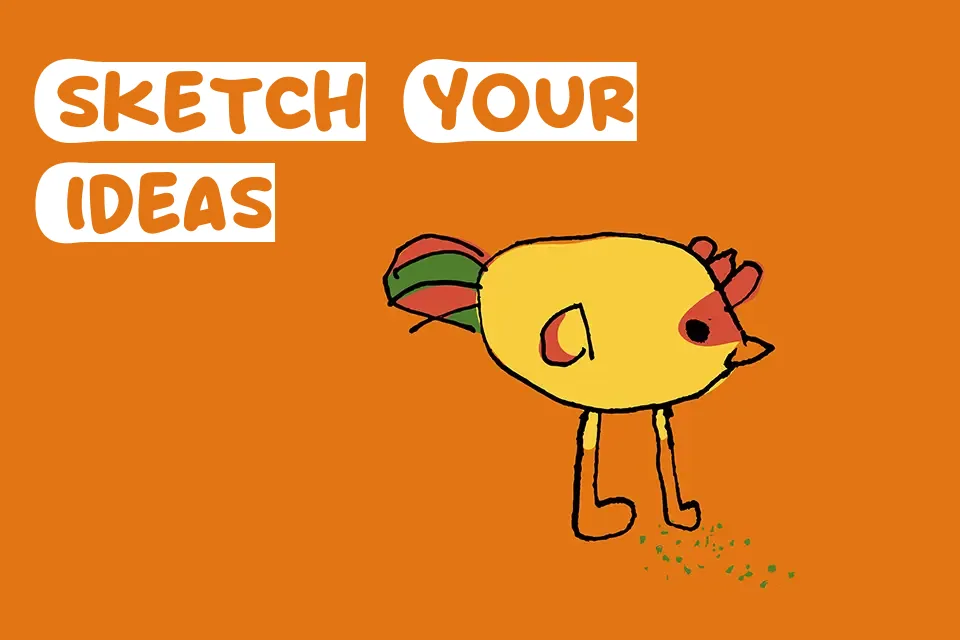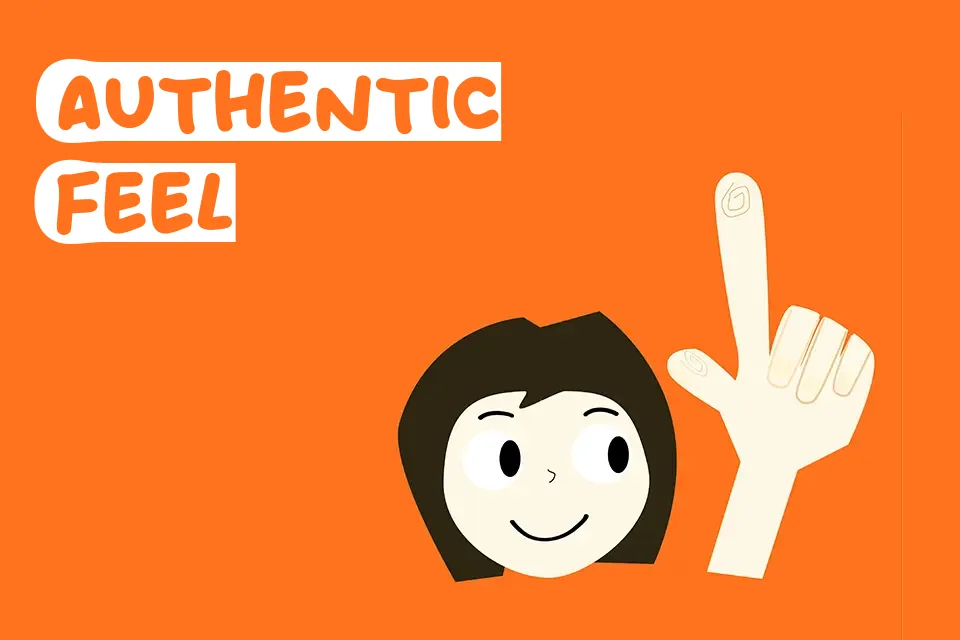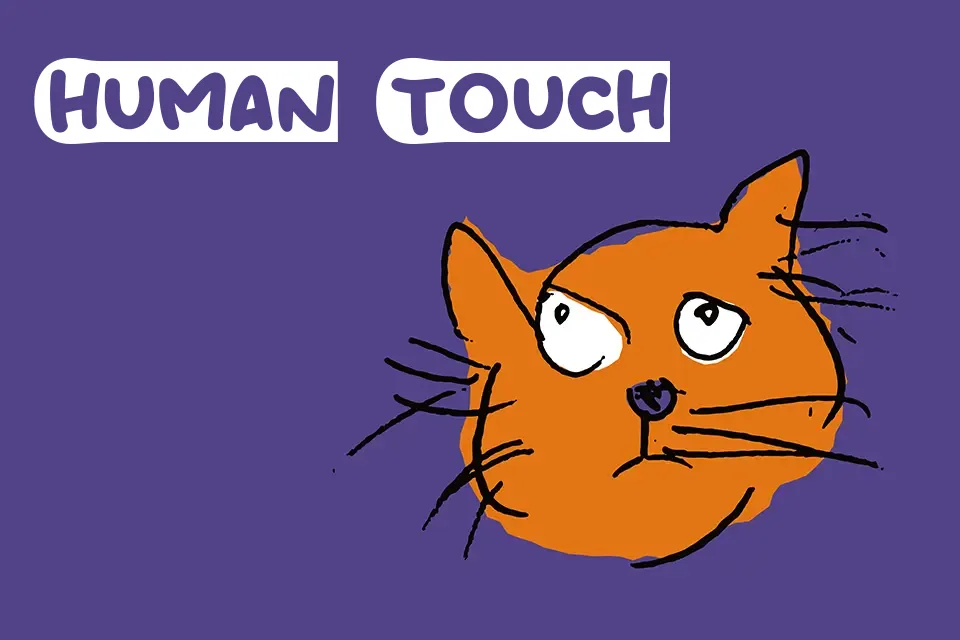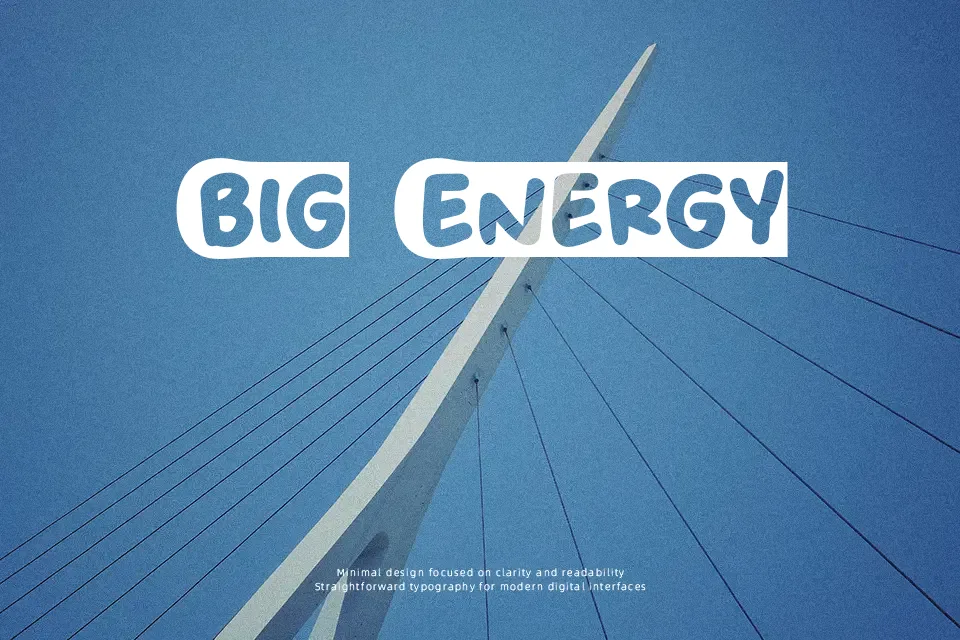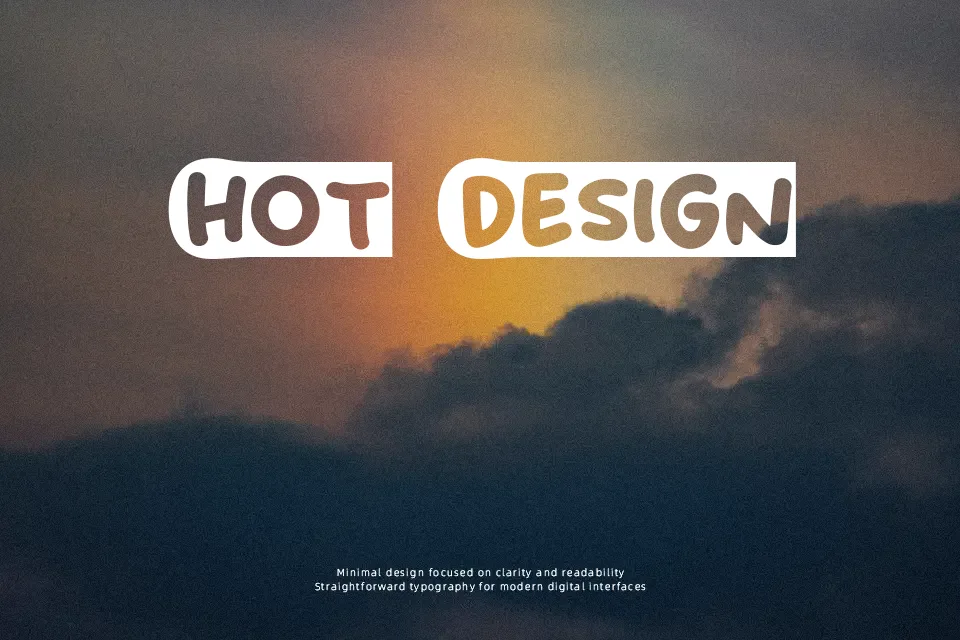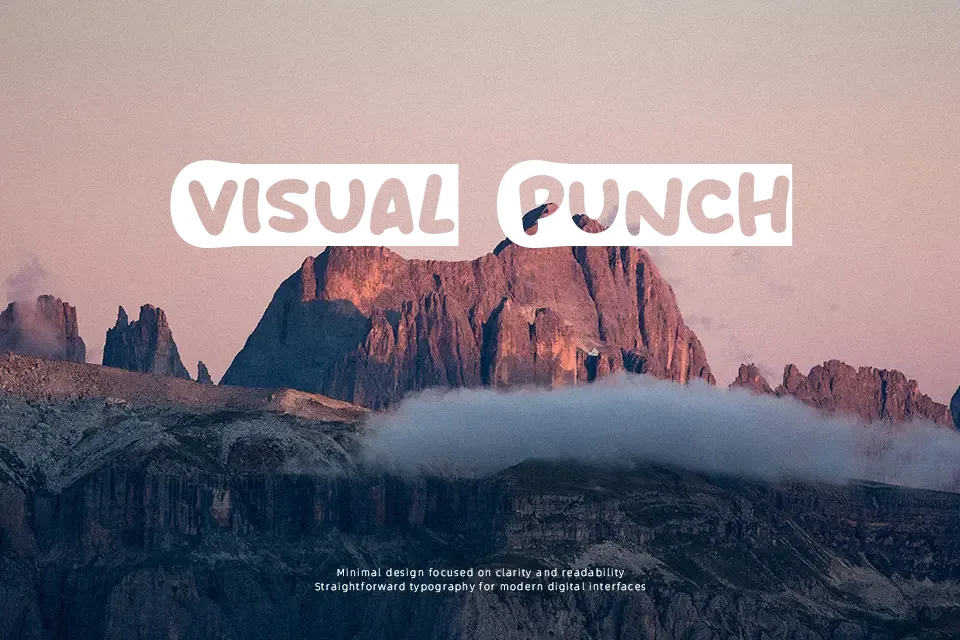
Share Dong Font
Share Dong Font presents an approachable cartoon aesthetic built with uniform stroke thickness, rounded terminal endings, and softly irregular character proportions. The bouncy baseline rhythm and moderate letter spacing give the typeface an energetic, hand-drawn personality that instantly enlivens short headlines, food packaging, comic strips, and animated video titles. Generous interior counters preserve clear letter differentiation when viewed at medium to large display scales. However, the informal silhouette and idiosyncratic contours cause small captions or body copy to look cluttered. Dense paragraphs quickly suffer from reduced reading comfort, confirming that the design performs at its absolute best in brief, cheerful display settings.
Best For: children book covers, food packaging labels, comic strip dialogue, animated video titles
Not Ideal For: long body text paragraphs, corporate financial reports, dense mobile app interfaces, legal contracts
Perfect for headline, kids, and logo, with a creative and cartoon style.